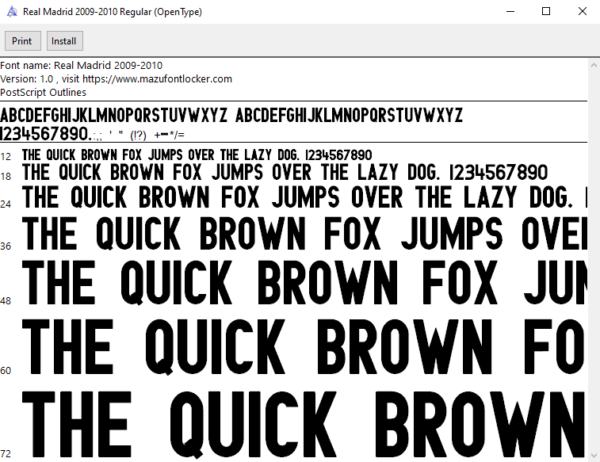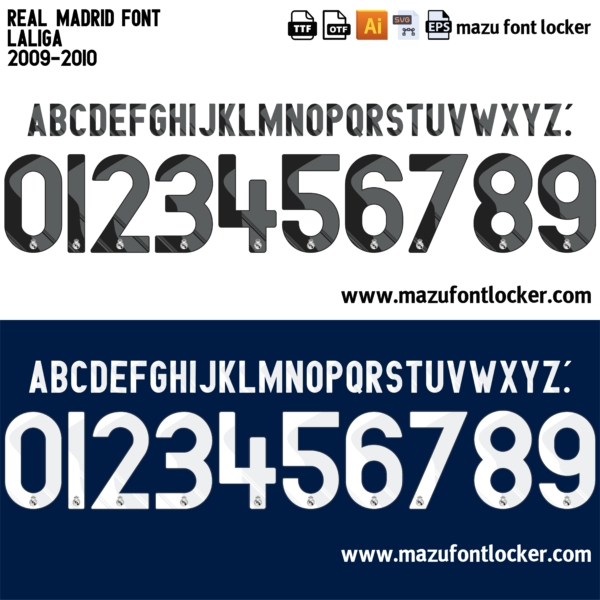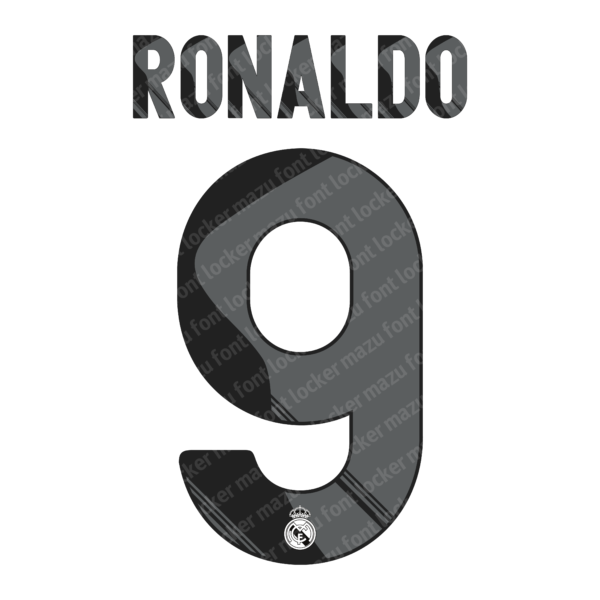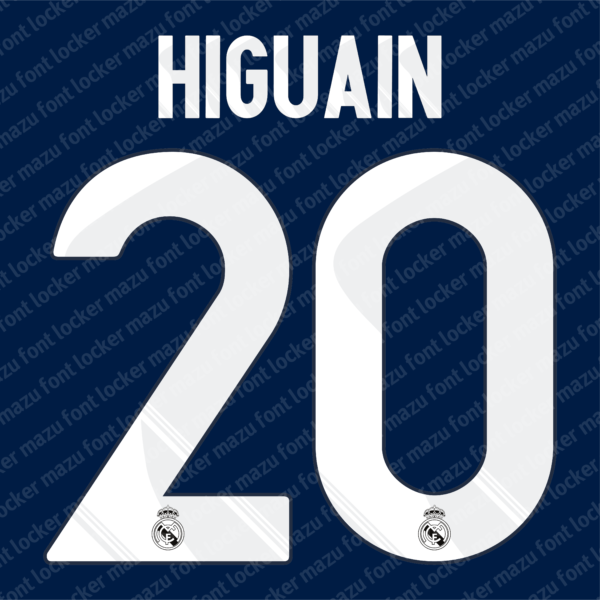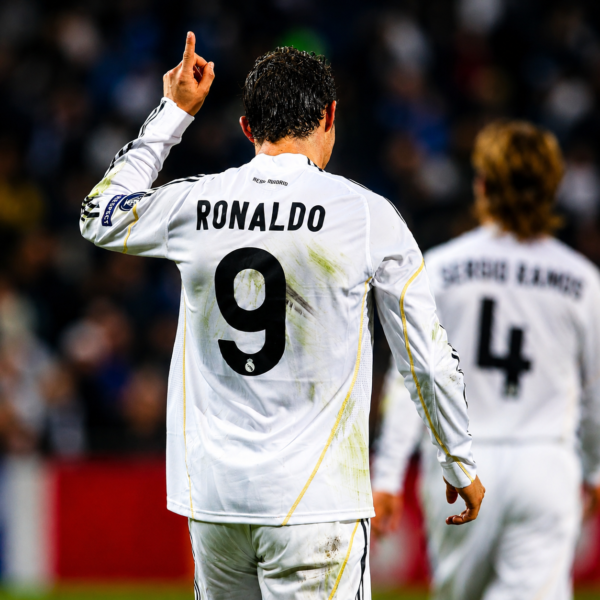
Real Madrid 2009-2010 Font Vector – Epic Galacticos Masterpiece
Real Madrid 2009-2010 Font – Authentic Los Blancos Typeface
The Real Madrid 2009-2010 Font is a premium typeface that accurately recreates the official match lettering worn by Real Madrid during the iconic 2009-2010 La Liga and Champions League season. This high-quality font kit captures the bold, elegant, and classic typography that represents one of the most memorable eras in club history.
Designed for professional designers and passionate Real Madrid fans, the Real Madrid 2009-2010 Font delivers perfect authenticity for creating retro jersey mockups, fan merchandise, matchday posters, social media graphics, and much more. It blends beautifully with the club’s legendary all-white kits from that golden period.
Why Choose Real Madrid 2009-2010 Font
This font stands out because of its sharp details and strong historical identity. Every letter and number is crafted to match the exact style used on the players’ shirts during the 2009-2010 season. Whether you are making realistic retro shirt templates or nostalgic football content, the Real Madrid 2009-2010 Font gives your designs that authentic Los Blancos look.
The letterforms in the Real Madrid 2009-2010 Font are tall, bold, and highly readable. The strokes have a strong and controlled weight that looks powerful on the back of jerseys while maintaining excellent clarity and timeless elegance.
The numerals use bold curves and firm edges, giving them a confident and premium appearance. This design ensures great legibility whether used in large print formats, digital mockups, or video content.
• Full uppercase A–Z and numbers 0–9 in authentic Real Madrid 2009-2010 style
• Special Real Madrid crest glyph for accurate shirt number detailing
• Create highly realistic Real Madrid 2009-2010 retro jersey mockups with accurate lettering
• Design stunning classic matchday posters, score graphics, and squad announcements
• Produce custom Los Blancos merchandise with an iconic football aesthetic
Real Madrid in the 2009-2010 Season